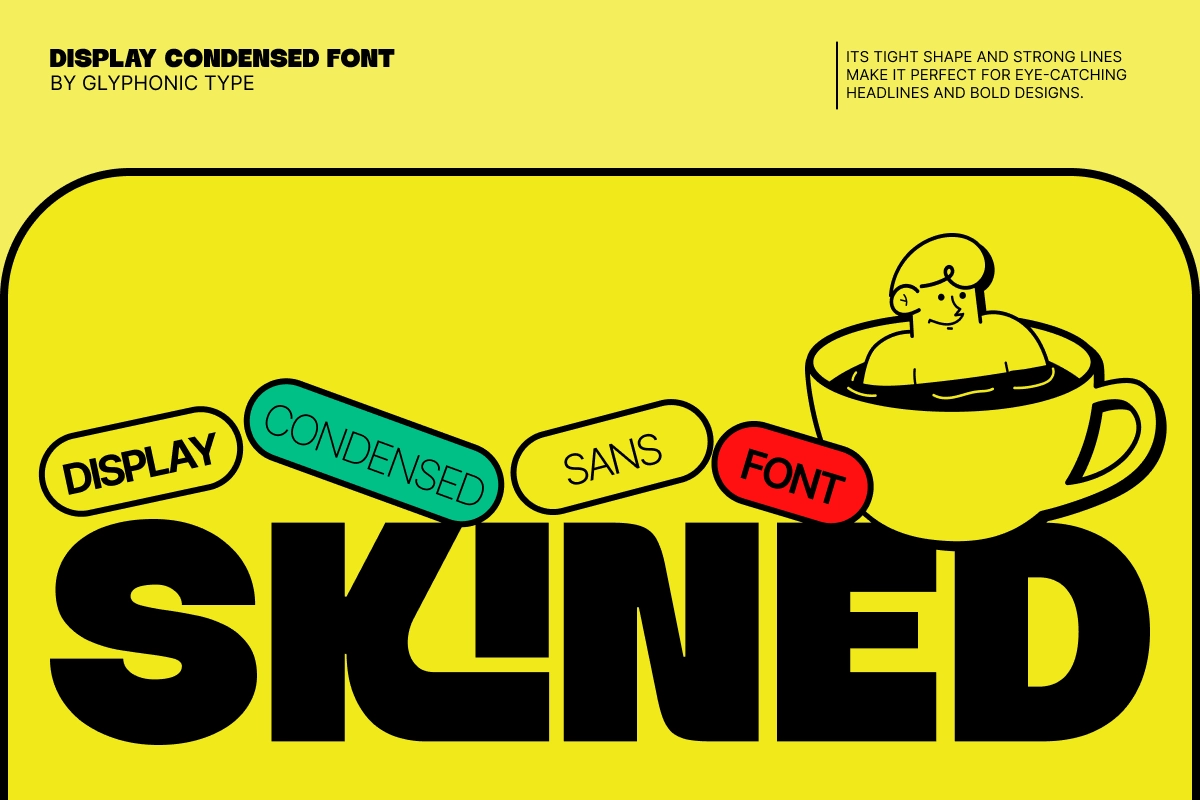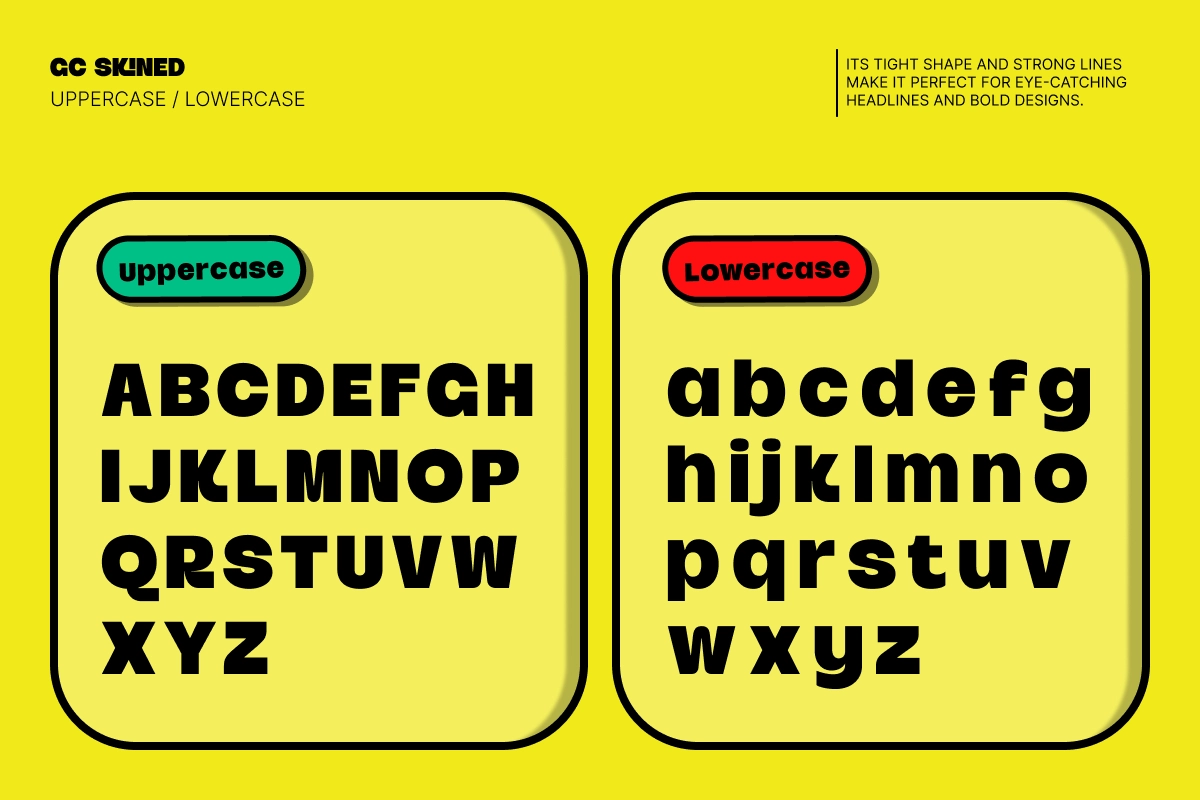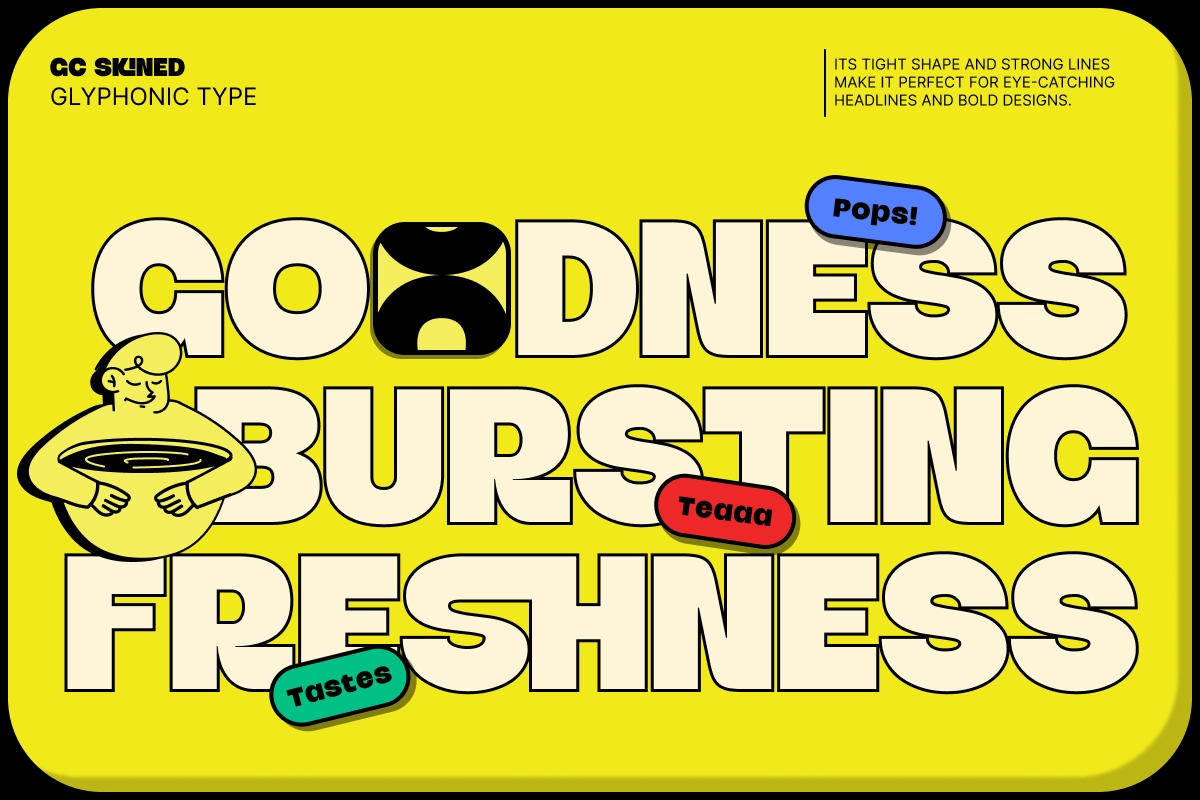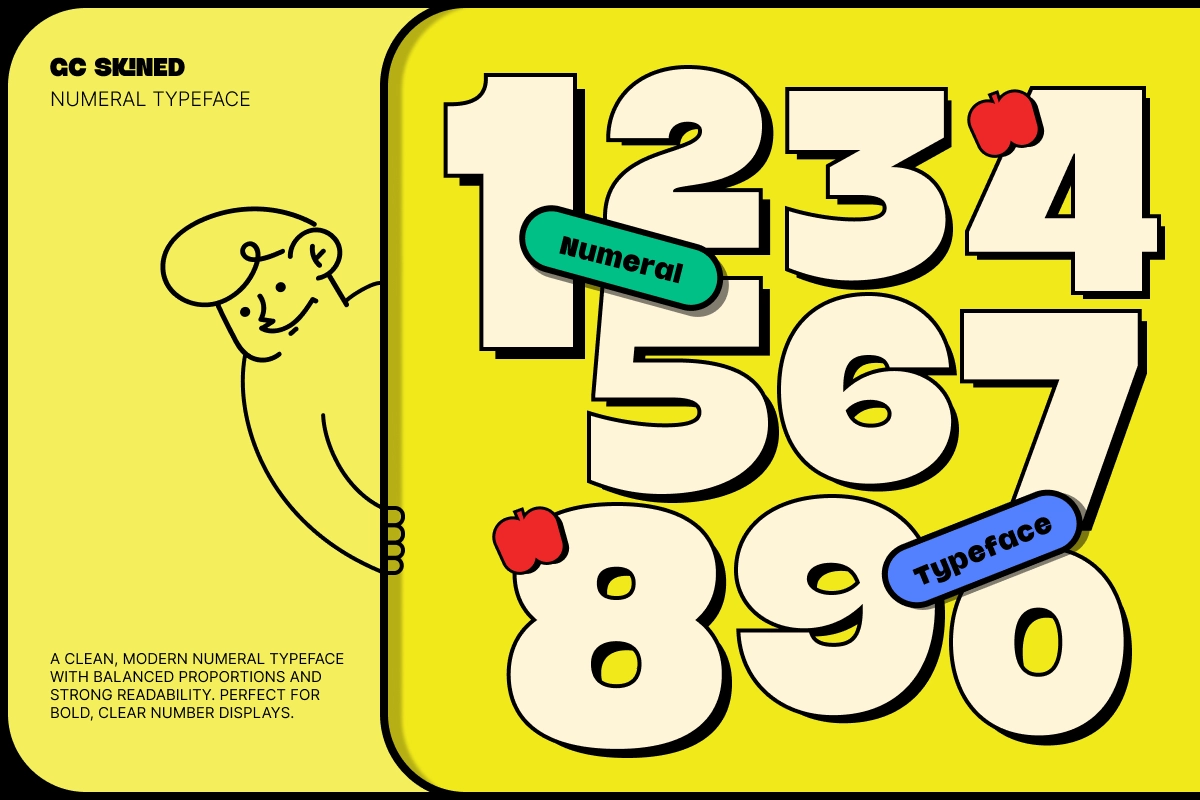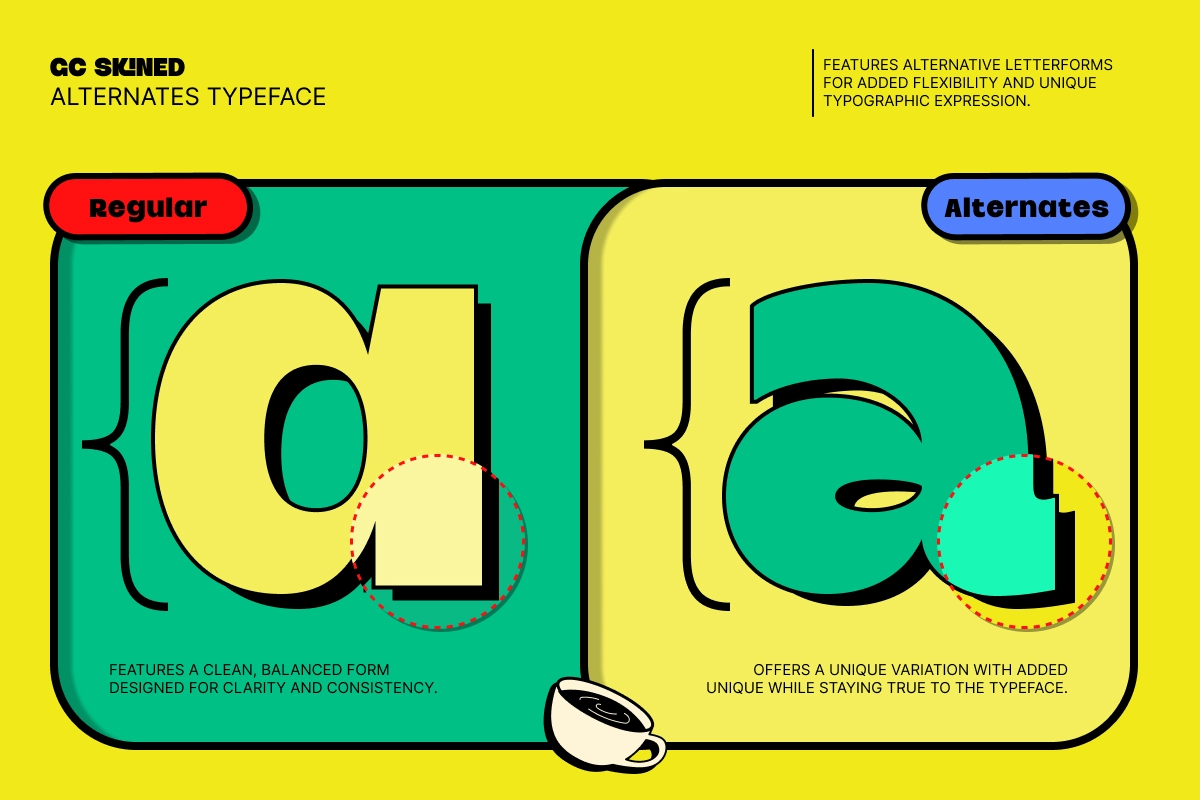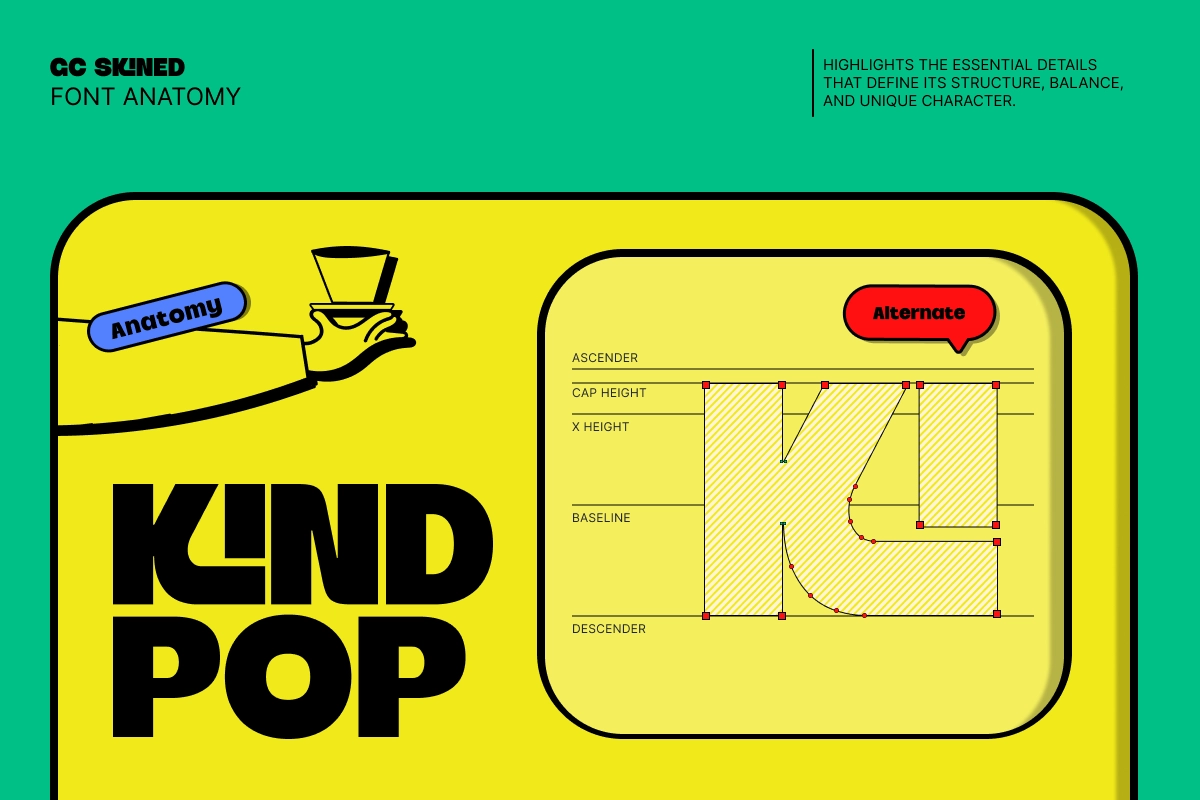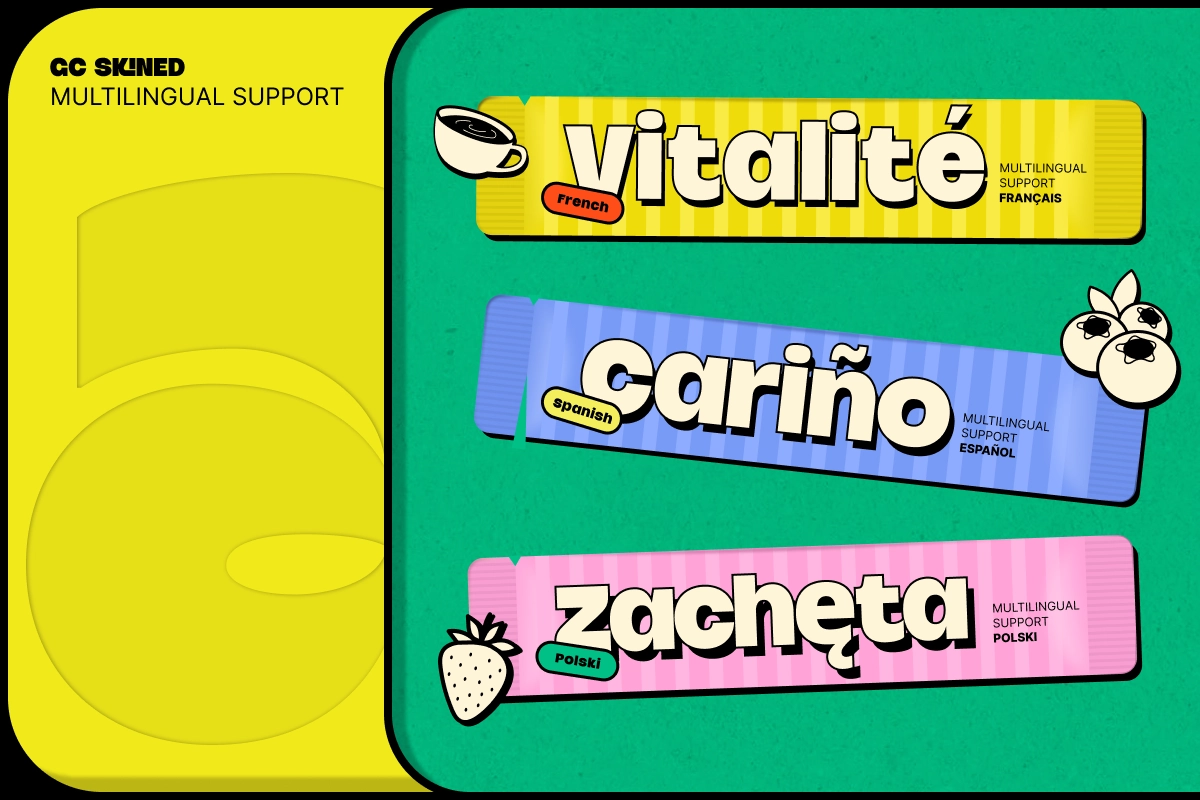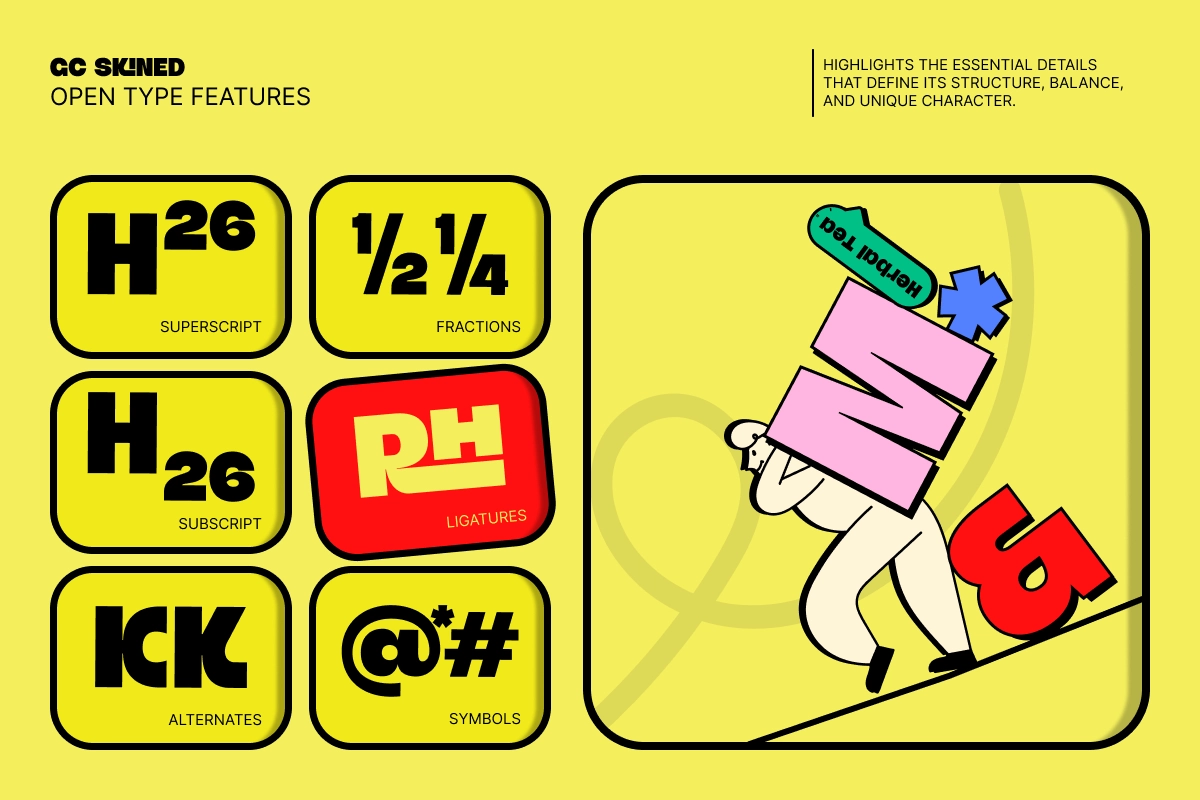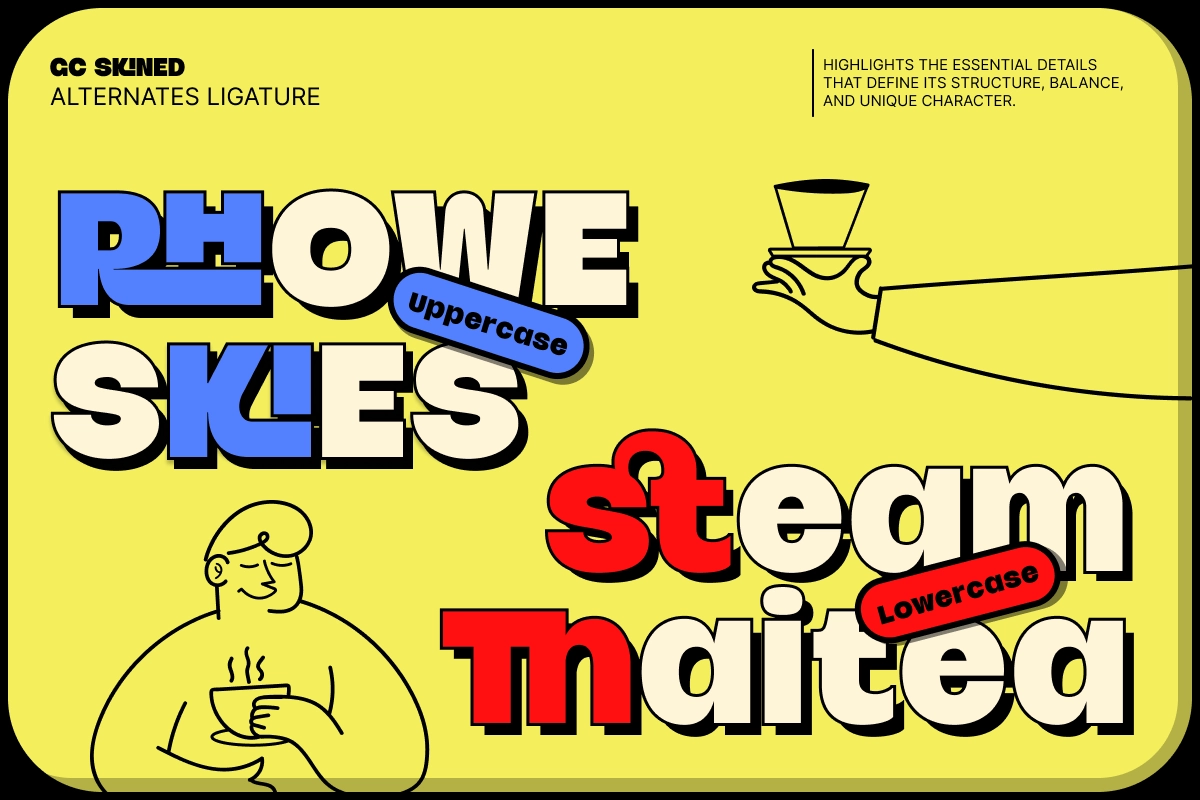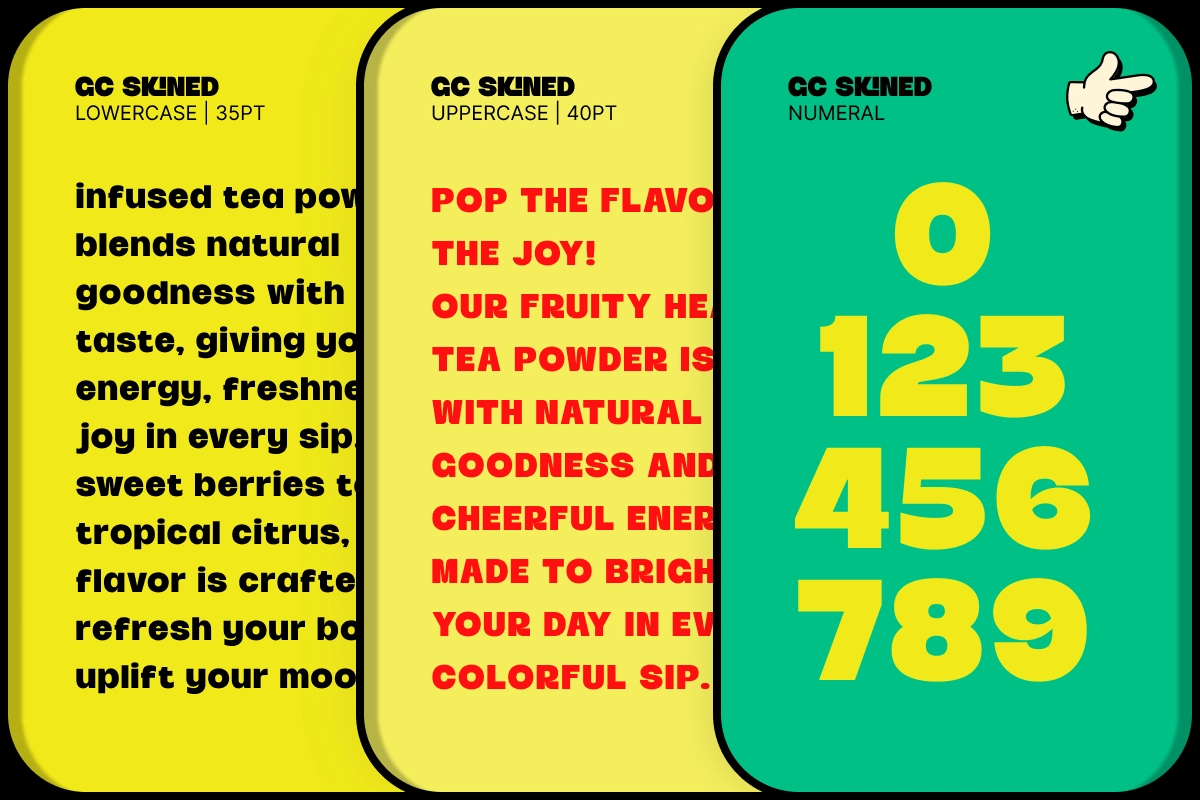
GC Skined – Bold Condensed Display
GC Skined – Bold Condensed Display is a powerful typeface designed to make a strong visual impact while saving space. Its tight proportions, solid strokes, and clean structure create a bold and confident look that instantly draws attention in any layout.
Perfect for headlines, posters, branding, packaging, and editorial use, this font delivers clarity and intensity across both print and digital media. With its modern condensed style and dynamic presence, GC Skined adds energy, structure, and a striking character to every design.
• Numerals
• Punctuation & Symbols
• Ligatures
• Alternates
• Superscript & Subscript
• Fractions
• Bold Condensed Style